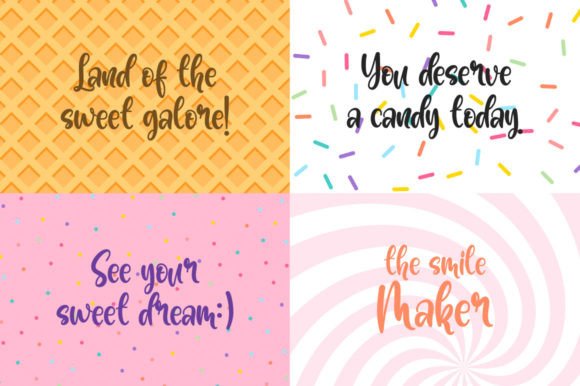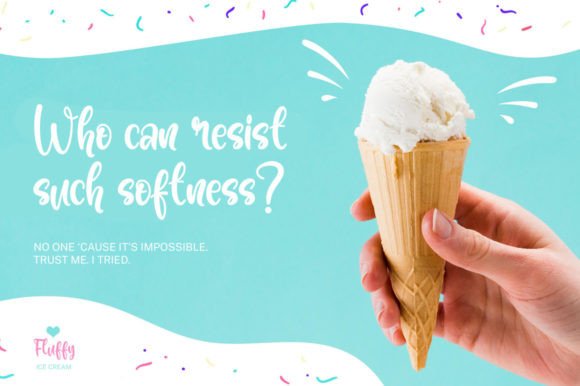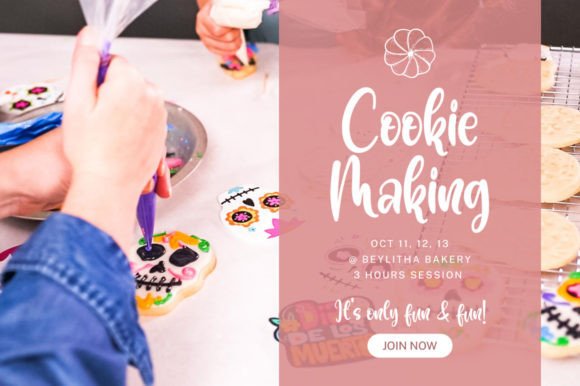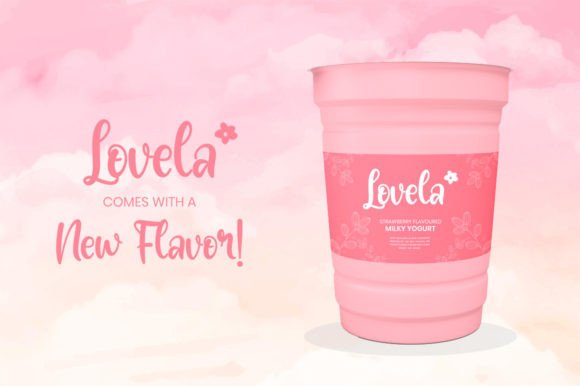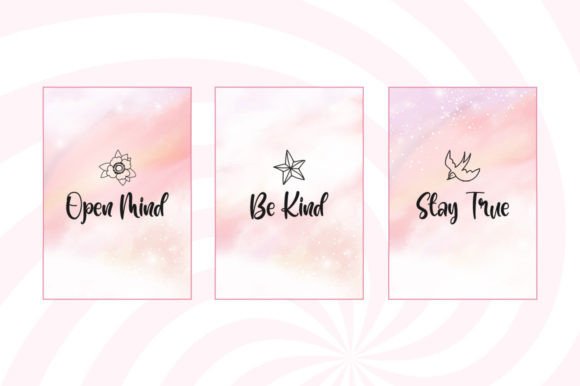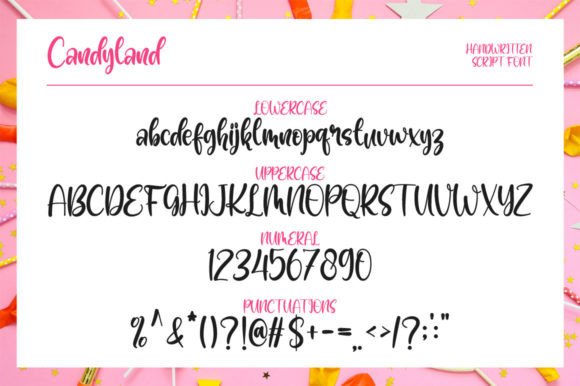
Unleashing the Sweet Charm of Design
Have you ever been browsing through a craft store, surrounded by an array of colorful pens, stickers, and papers, and suddenly you stumble upon a font that makes your heart skip a beat? For designers, that moment of creative euphoria is what drives us to create something truly special. And that’s exactly what happens when you discover the whimsical world of Candyland Font.
This delightful handwritten font is a game-changer for any design project that requires a touch of personality. Whether you’re crafting invitations, thank you cards, or logos, Candyland Font adds a customized charm that sets your design apart from the rest. Its ravishing look is not just aesthetically pleasing, but also versatile enough to suit a wide range of design needs.
For designers, Candyland Font is a valuable addition to any toolkit, offering endless possibilities for creative expression. With its smart and fun design, it’s the perfect choice for those looking to add a unique touch to their work.
Candyland Font Key Features
- Unique Hand-Drawn Style: The Candyland Font features a whimsical, hand-drawn style reminiscent of classic children’s games.
- Character Set: Includes a comprehensive set of uppercase and lowercase letters, numbers, punctuation, and special characters.
- Color Palette: Features a vibrant color scheme with a primary color palette of bright pink, blue, yellow, and orange, perfect for creating playful and eye-catching designs.
Candyland Font Review
Candyland Font is a delightful, whimsical font that’s sure to bring a touch of magic to any project ✨. Its playful, childlike feel makes it perfect for designs targeting a younger audience or those that require a sense of nostalgia.
Some of the things that work well with this font include:
- Its consistent, rounded edges create a cohesive look ✨
- It’s easy to read, even at smaller font sizes ✨
- The font’s uniqueness adds a touch of personality to any design ✨
- Its overall design may be too playful for more serious or professional projects ⚠️
- The font may not be suitable for designs that require a lot of text or complex layouts ⚠️
Overall, I think Candyland Font is a great choice for designers who want to add a touch of whimsy to their projects. While it may not be suitable for every project, its unique design and playful feel make it a great option for the right client or project.
Getting the Most Out of the Candyland Font
The Candyland font is a fun and playful font that is perfect for creating whimsical designs. To get the most out of it, try using it in conjunction with bright and bold colors, and consider adding illustrations or graphics to enhance the design.
The Candyland font is commonly used in designs for children’s parties, birthday invitations, and other fun and playful occasions. It can also be used in branding and marketing materials for companies that want to convey a sense of whimsy and fun.
Alternatives to Candyland Font
Great Vibes is a handwritten font that mimics the whimsical feel of Candyland Font. It is ideal for creating playful and child-friendly designs, such as children’s books, party invitations, and social media graphics. Great Vibes has a more elegant and refined feel compared to Candyland Font, making it suitable for a wider range of applications.
Pacifico is a beautiful, modern script font that shares some similarities with Candyland Font’s flowing lines and curves. It is perfect for designs that require a touch of sophistication and elegance, such as wedding invitations, branding materials, and luxury product packaging. Pacifico has a more polished and refined look compared to Candyland Font, making it suitable for high-end designs.